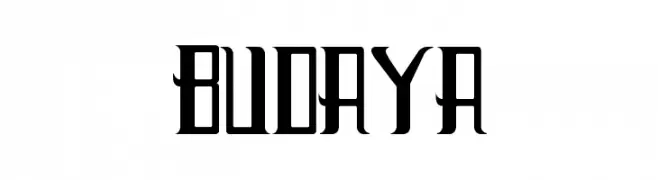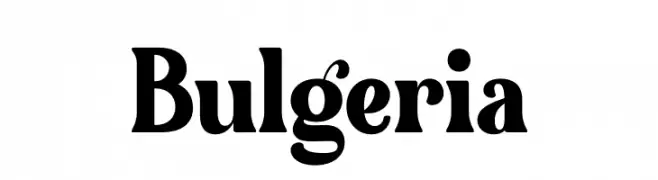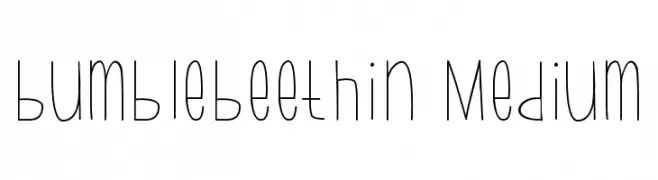
A bold, modern font with Gothic influences and high contrast strokes.
A bold, geometric font with sharp angles and a futuristic style.
A bold, high-contrast serif font with expressive, rounded serifs.
A playful, thin-stroked font with a whimsical and modern style.
A whimsical and decorative serif font with playful curls and flourishes.
A bold, modern sans-serif font with a clean and geometric design.
A bold, modern font with thick, uniform strokes for high legibility.
A playful and energetic script font with bold, flowing strokes and a handwritten quality.